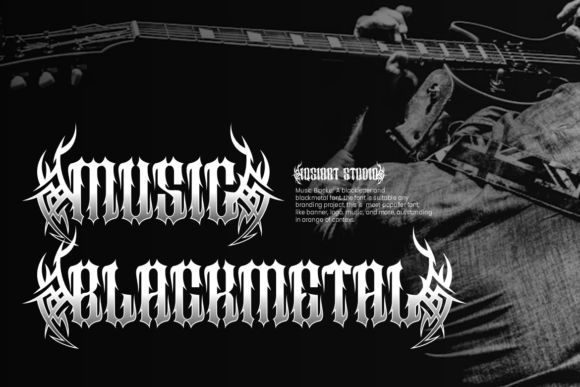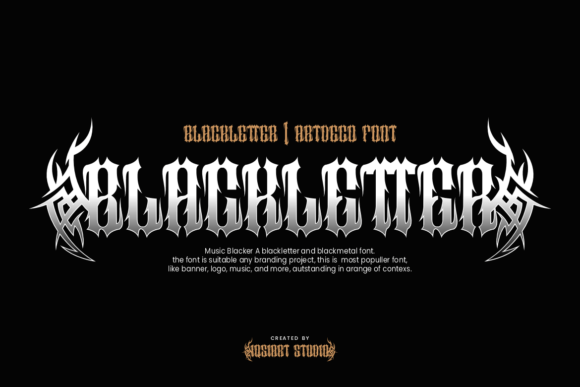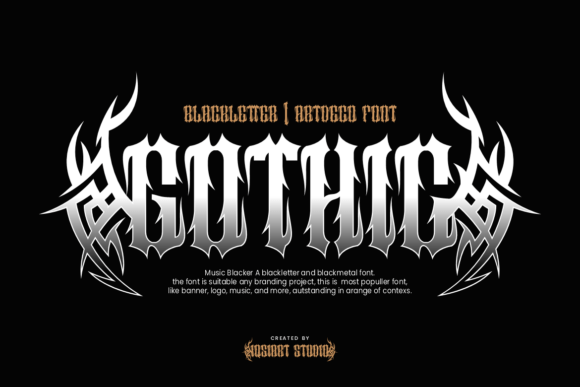
Introduction to Music Blacker Font
Music Blacker is a bold and aggressive blackletter font inspired by the dark aesthetics of black metal and tattoo culture.
With razor-sharp edges, gothic flair, and tribal-style accents, this font demands attention in any design Perfect for album covers, logos, posters, and branding that needs a rebellious, heavy-hitting vibe, Music Blacker delivers a raw, powerful look that’s impossible to ignore.